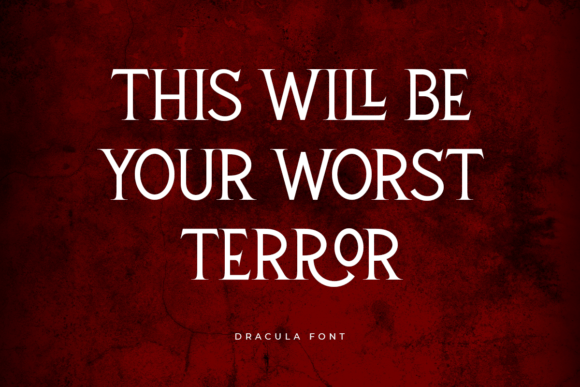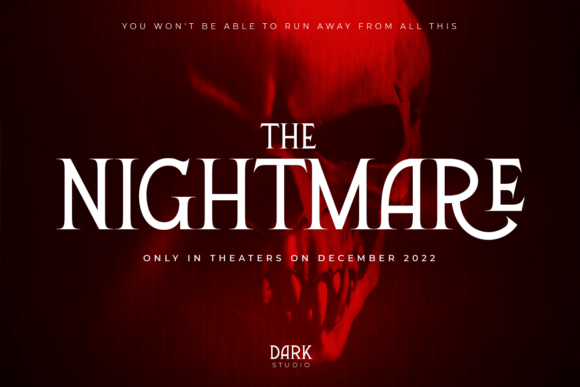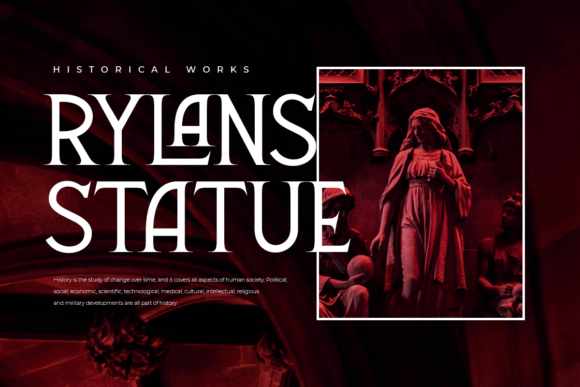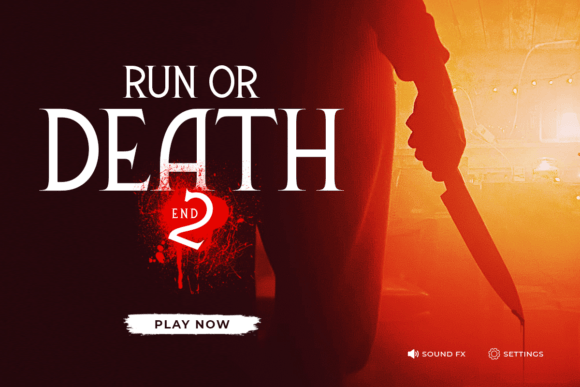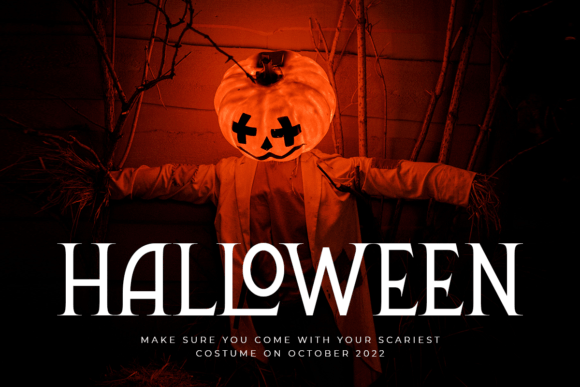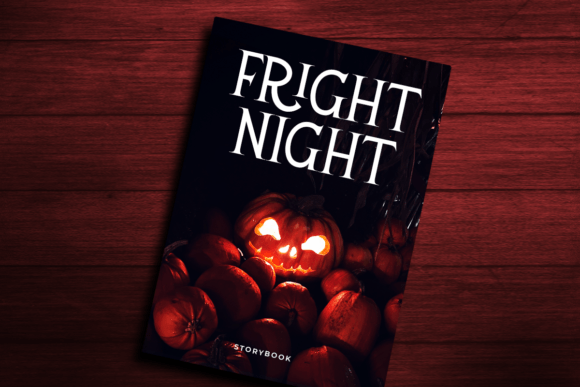
Dracula Font: Unleash the Horror in Your Visual Branding
Are you looking for a font that will add a touch of horror and suspense to your visual branding? Look no further than the Dracula Font. This display font is specifically designed with branding needs in mind, making it perfect for businesses that want to stand out from the crowd and leave a lasting impression on their customers.
The Inspiration Behind Dracula Font
The Dracula Font is inspired by the classic horror character, Count Dracula. The font’s design is meant to evoke the feeling of fear and suspense that comes with the iconic vampire. With its bold and edgy design, Dracula Font is sure to grab attention and leave a lasting impression on your audience.
Key Features of Dracula Font
- Horror-themed design: Dracula Font features a unique and terrifying design that is sure to add a touch of horror to your visual branding.
- Display font: This font is specifically designed for display purposes, making it perfect for logos, headings, and any other text that needs to be displayed in a bold and attention-grabbing manner.
- Branding needs in mind: Dracula Font is designed with branding needs in mind, making it perfect for businesses that want to create a unique and memorable visual identity.
- Easy to read: Despite its bold and edgy design, Dracula Font is easy to read, making it perfect for use in a variety of applications, from logos to headings and more.
Uses for Dracula Font
Dracula Font is a versatile font that can be used in a variety of applications, including:
- Logos: Add a touch of horror and suspense to your logo with Dracula Font.
- Headings: Use Dracula Font to create bold and attention-grabbing headings for your website, blog, or marketing materials.
- Signage: Dracula Font is perfect for use in signage, including horror-themed events, haunted houses, and more.
- Merchandise: Use Dracula Font to create unique and eye-catching merchandise, such as t-shirts, stickers, and more.
Benefits of Using Dracula Font
There are many benefits to using Dracula Font in your visual branding, including:
- Stand out from the crowd: Dracula Font is a unique and bold font that is sure to grab attention and set your business apart from the competition.
- Create a lasting impression: The horror-themed design of Dracula Font is sure to leave a lasting impression on your customers, making it perfect for businesses that want to create a memorable brand.
- Versatility: Dracula Font can be used in a variety of applications, from logos to headings and more.
Tips for Using Dracula Font
Here are a few tips for using Dracula Font in your visual branding:
- Use it sparingly: While Dracula Font is a bold and attention-grabbing font, it can be overwhelming if used too much. Use it sparingly to create a lasting impression.
- Pair it with other fonts: Dracula Font pairs well with other fonts, including sans-serif fonts and script fonts. Experiment with different pairings to find the one that works best for your brand.
- Consider your audience: While Dracula Font is perfect for horror-themed businesses, it may not be suitable for all audiences. Consider your target audience before using this font.